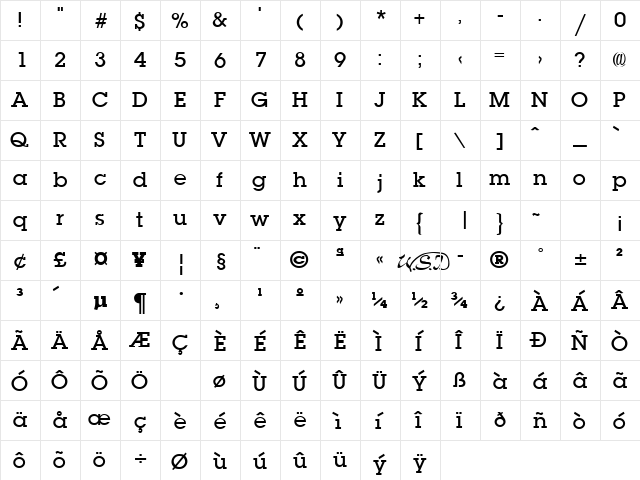
Lapland Demibold Regular Font Preview
Lapland Demibold Regular
Lapland Demibold Regular Font Details
Design Context for Lapland Demibold Typeface
Lapland Demibold takes a measured approach to typography — its balanced proportions and neutral character make it a reliable workhorse for both digital and print work. Its bold stroke weight gives it real presence on the page.